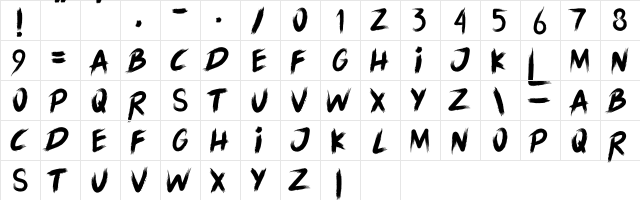
LORD OF THE RING Regular Font Preview
LORD OF THE RING Regular
Design Context for LORD OF THE RING Typeface
LORD OF THE RING is a composed and adaptable typeface that performs quietly and consistently across a wide range of design contexts.
Pro Tip: Use LORD OF THE RING in both headline and body roles to test its range before committing to a single application.